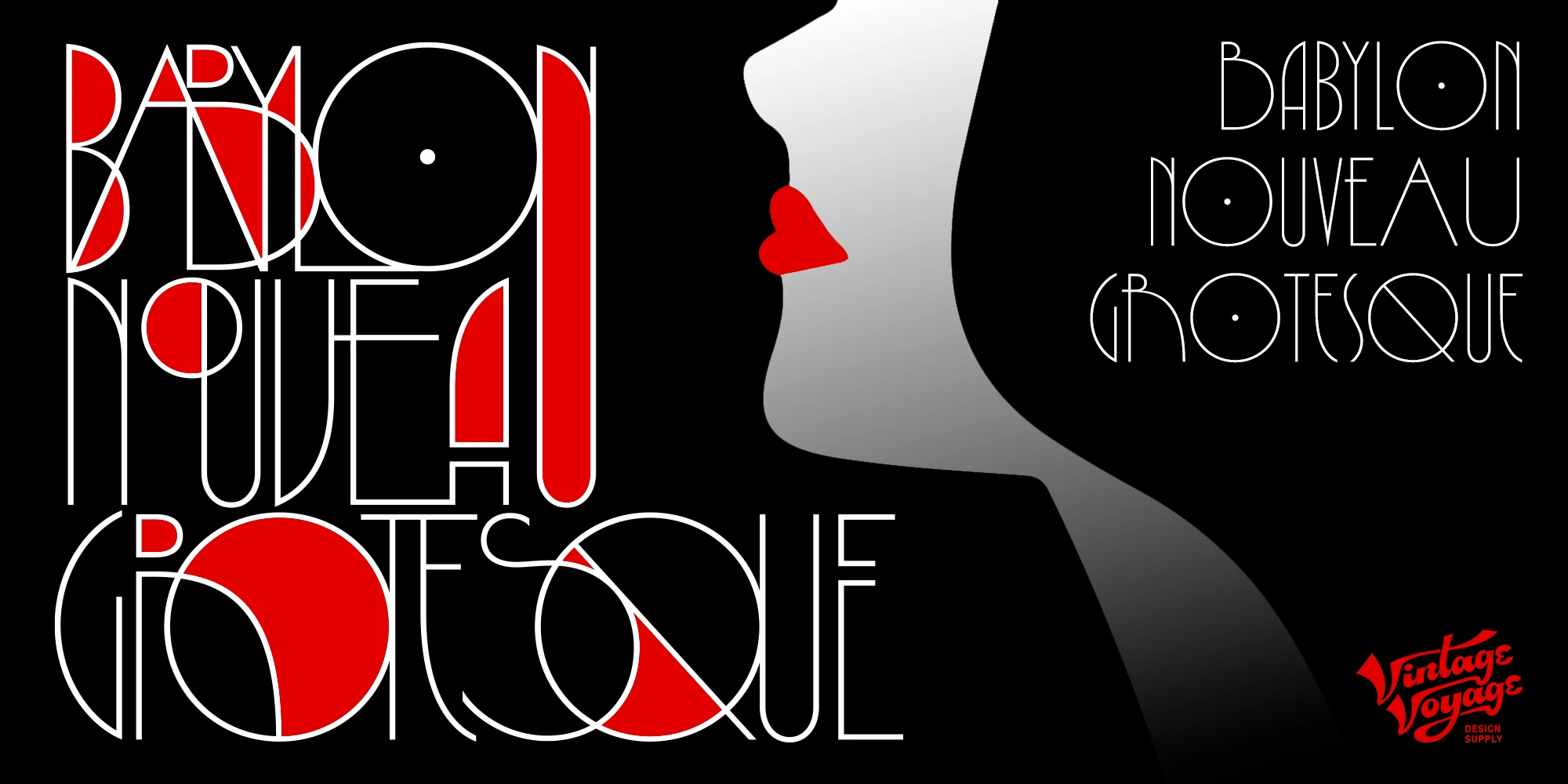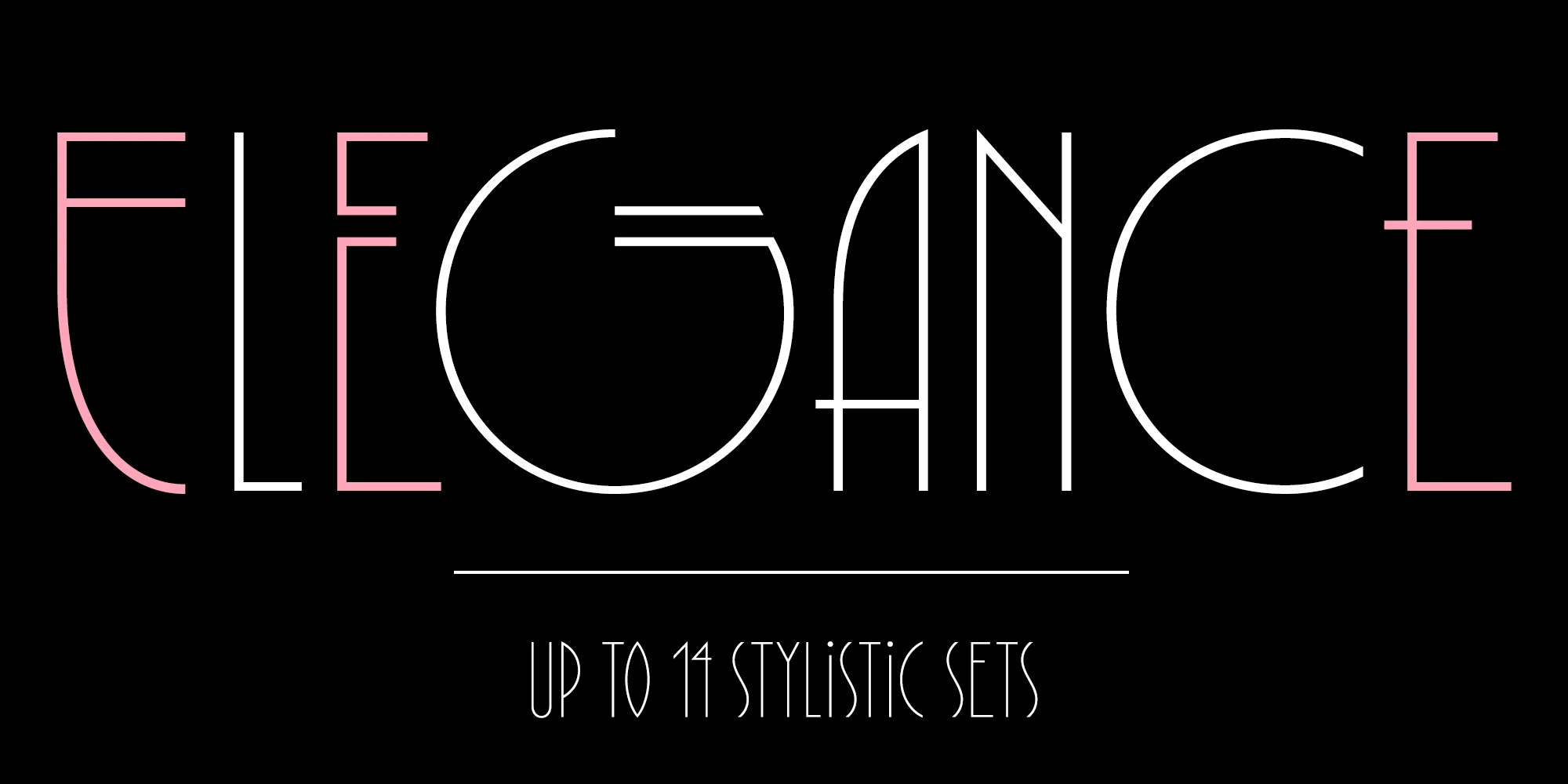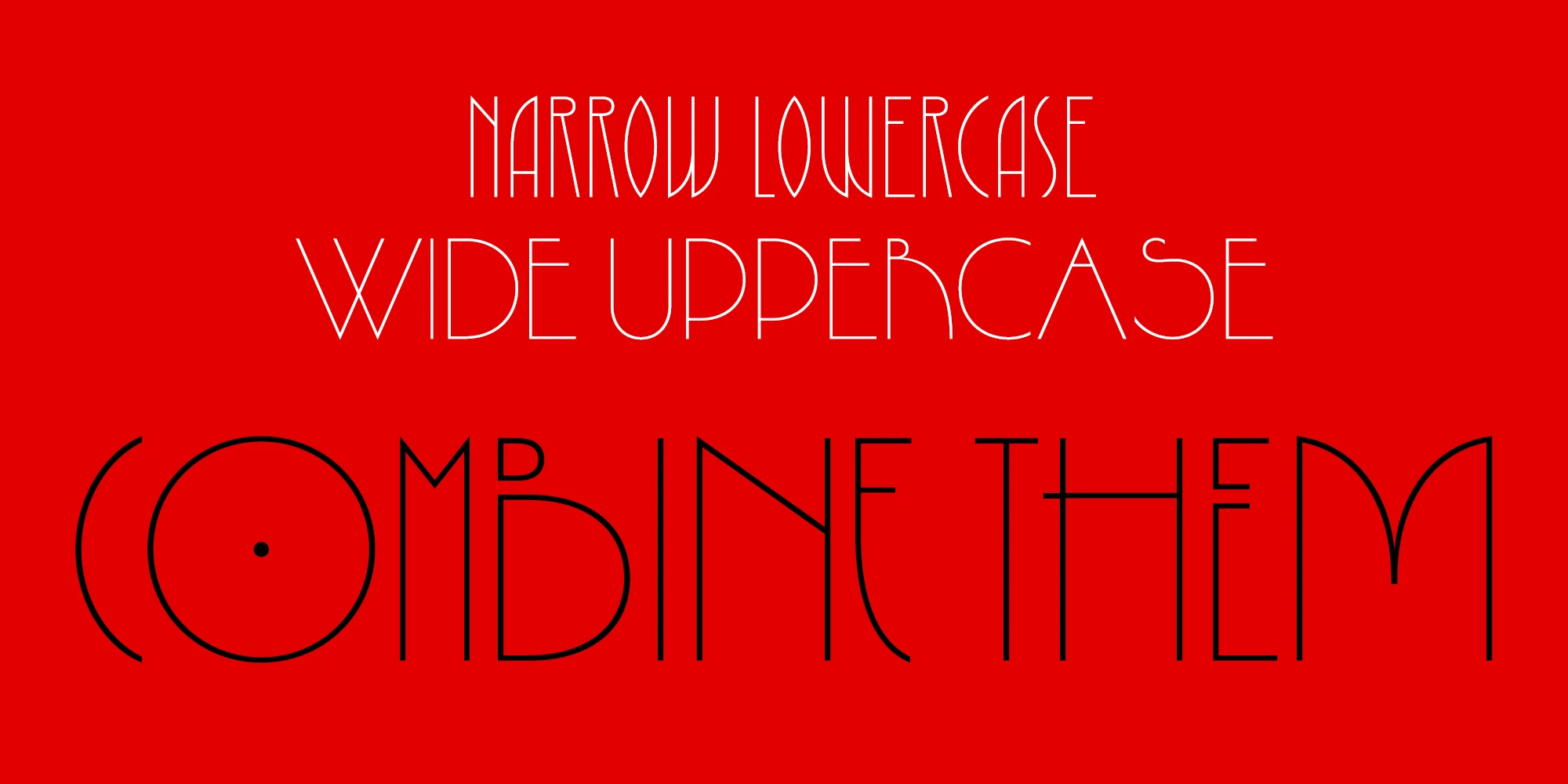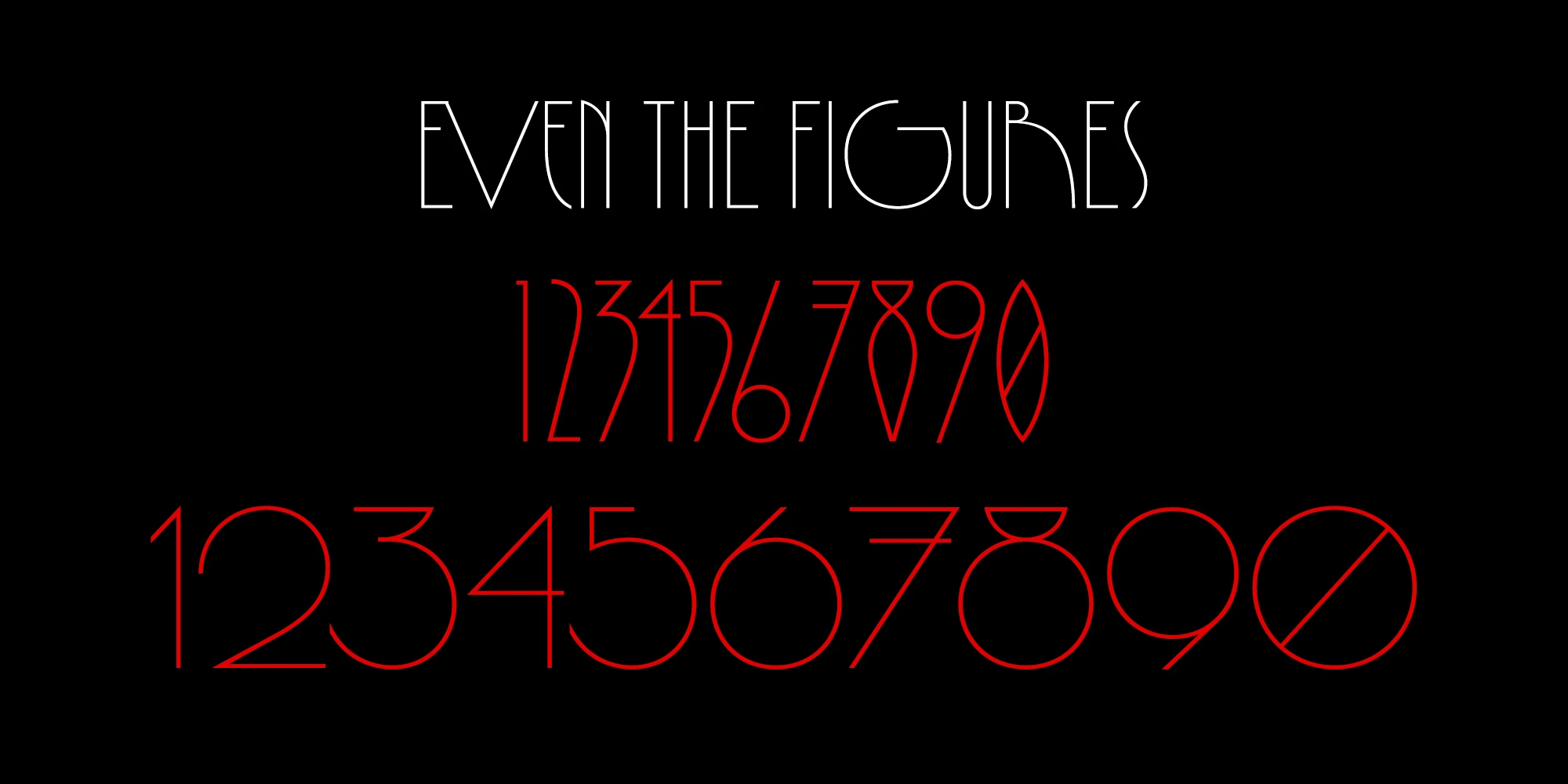
Babylon Nouveau • 1 font
Babylon Nouveau is an Art Deco sans serif embracing modernity. This typeface is a striking balance of minimalism and geometry, elevating any typography with its strong architectural forms. Its all-caps, single-weight structure is deceptively simple — unexpected alternates unlock a treasure trove of stylistic possibilities: book covers, film titles, house numbers, wedding invitations, theater posters, food packaging, and media brands. Babylon Nouveau thrives anywhere bold elegance is required.
• Common Ligatures
• Fractions
• Ordinal Numerals
• Stylistic Alternates
• Stylistic Sets
• Subscript
• Superscript
Babylon Nouveau
Babylon Nouveau Regular